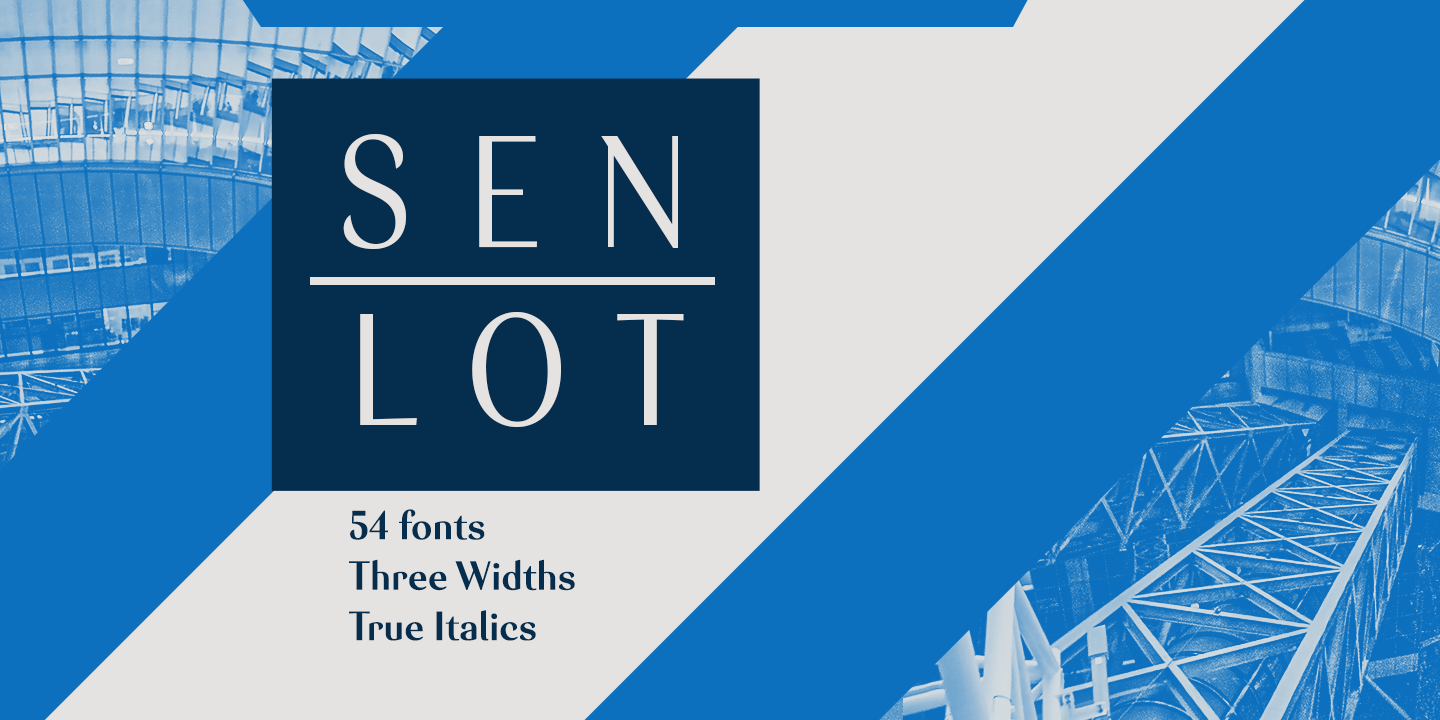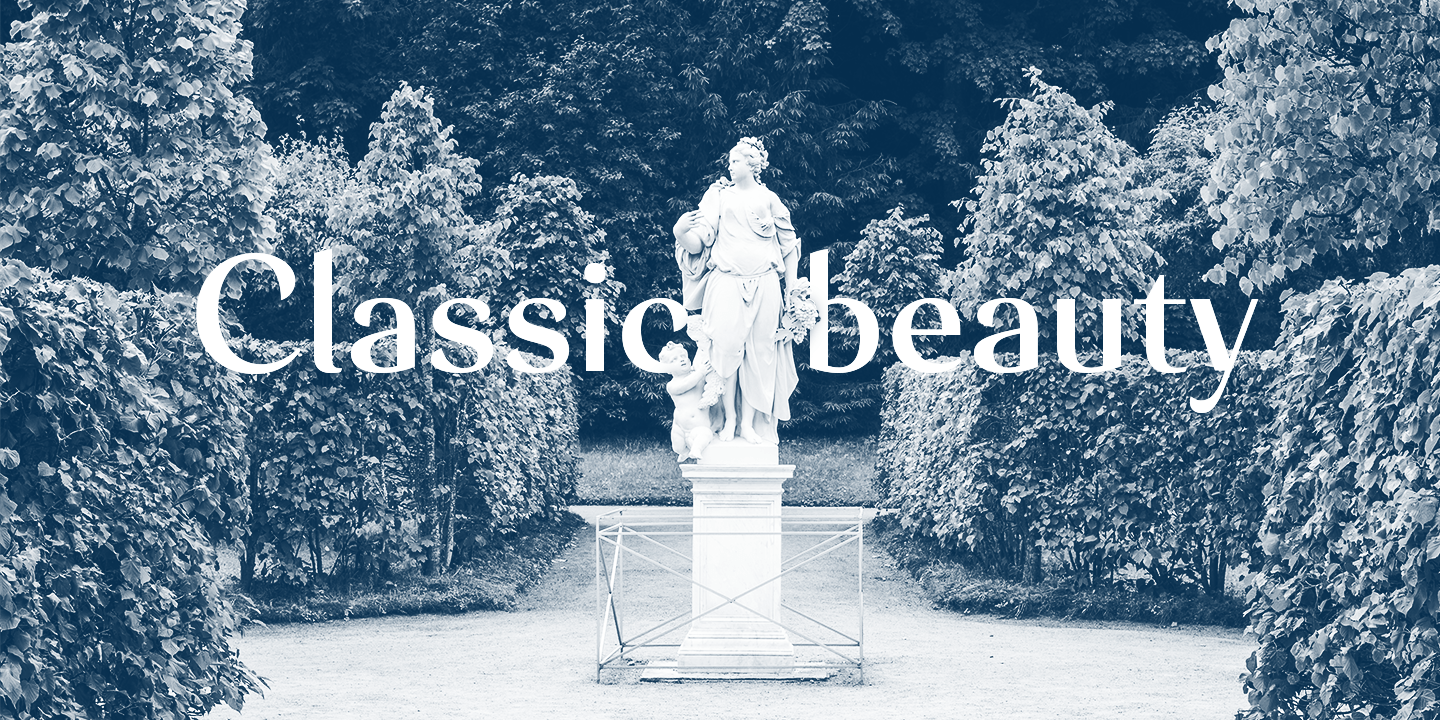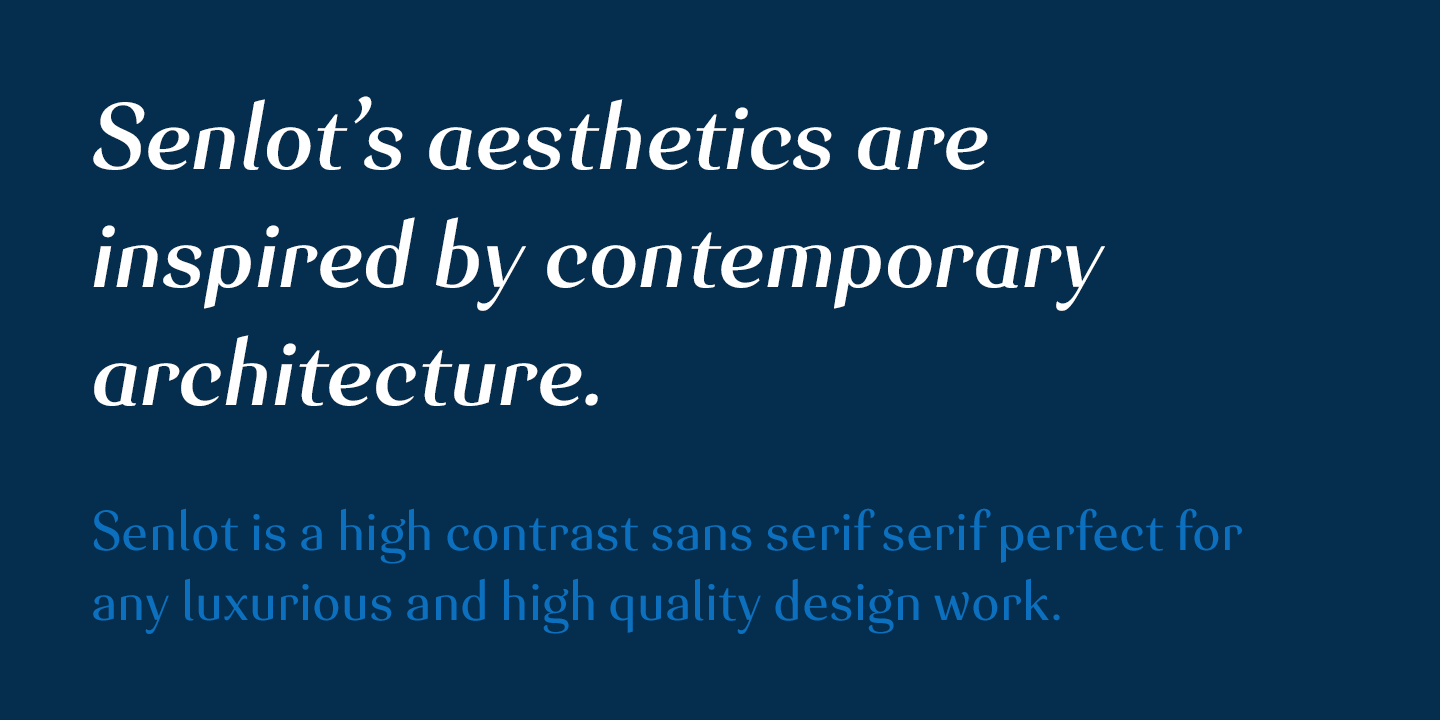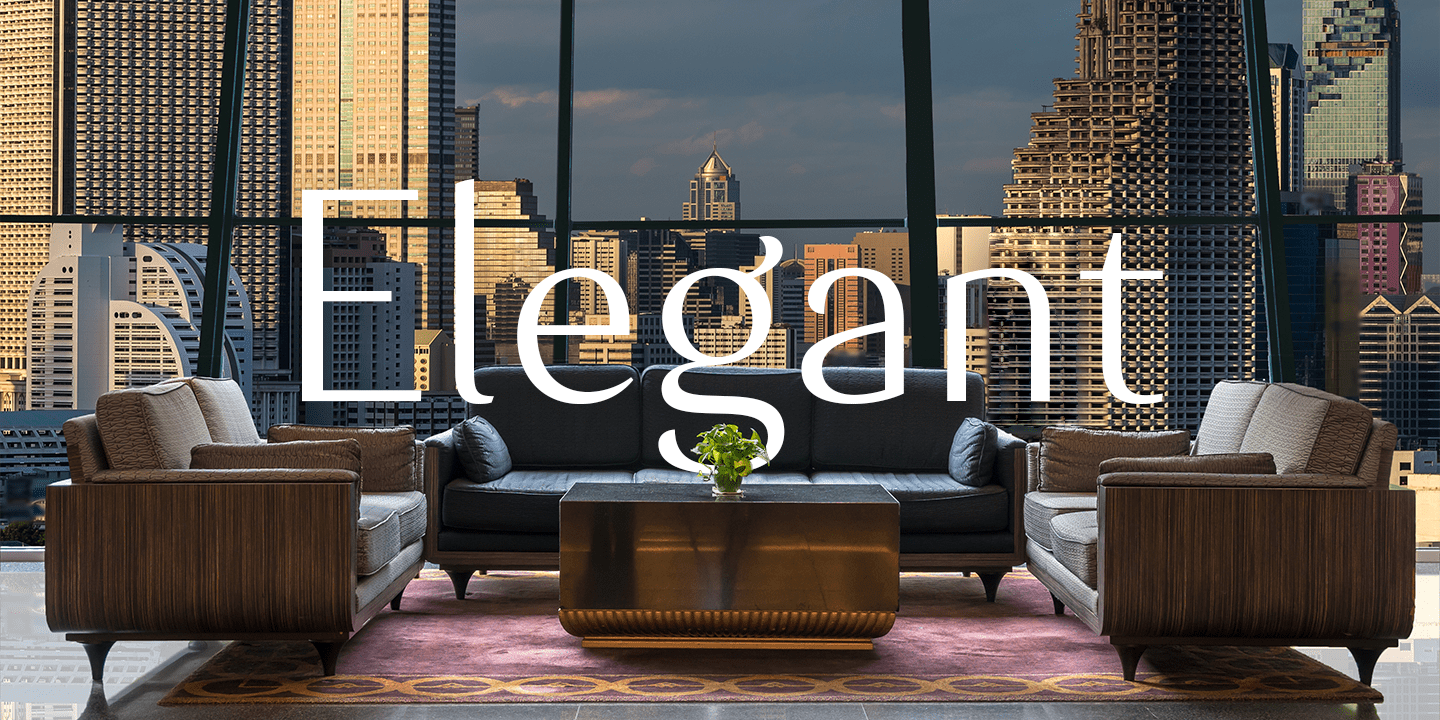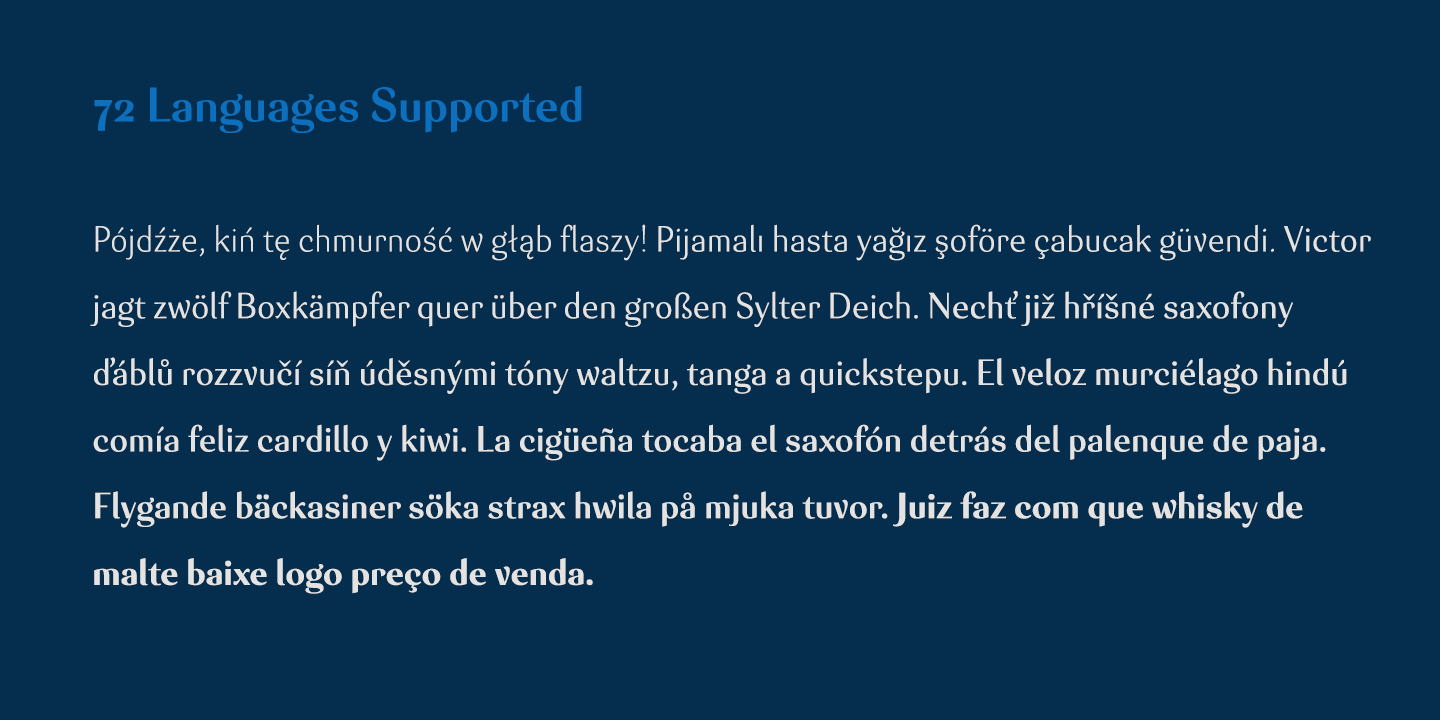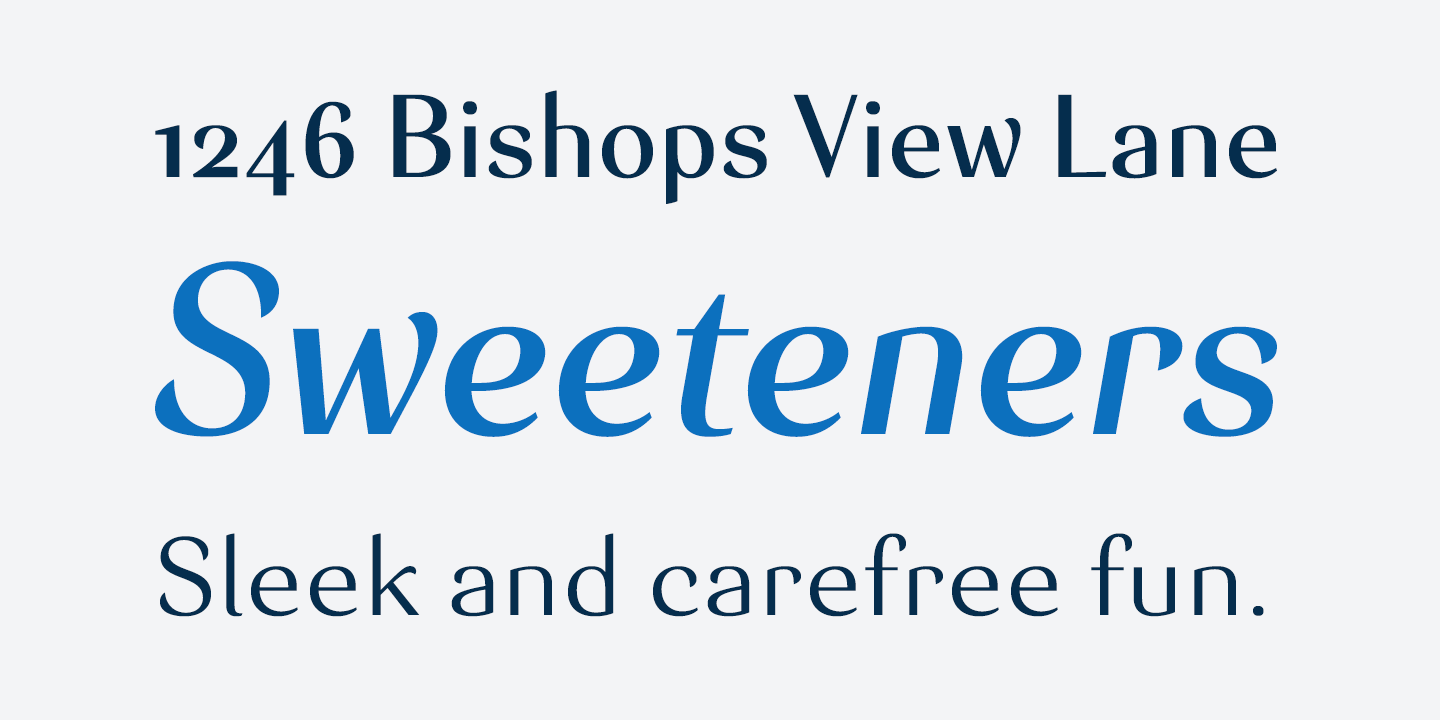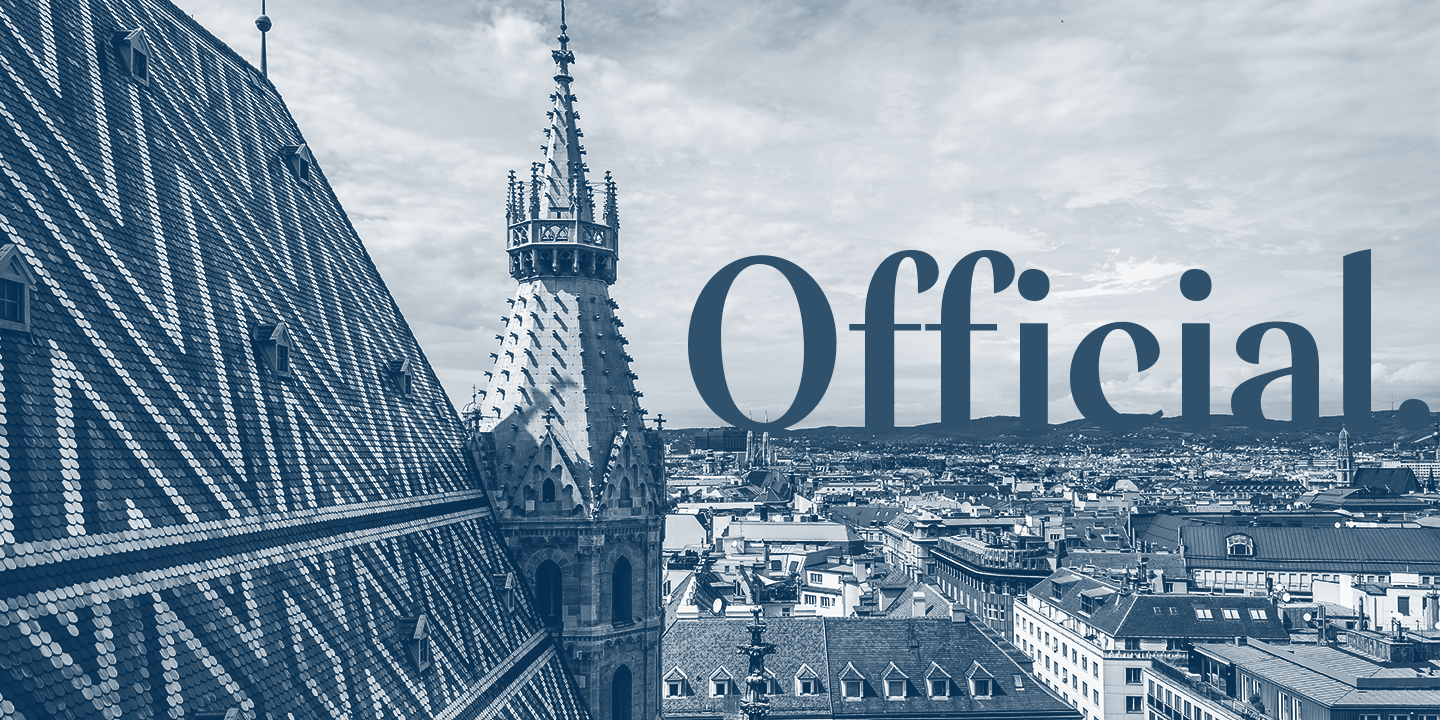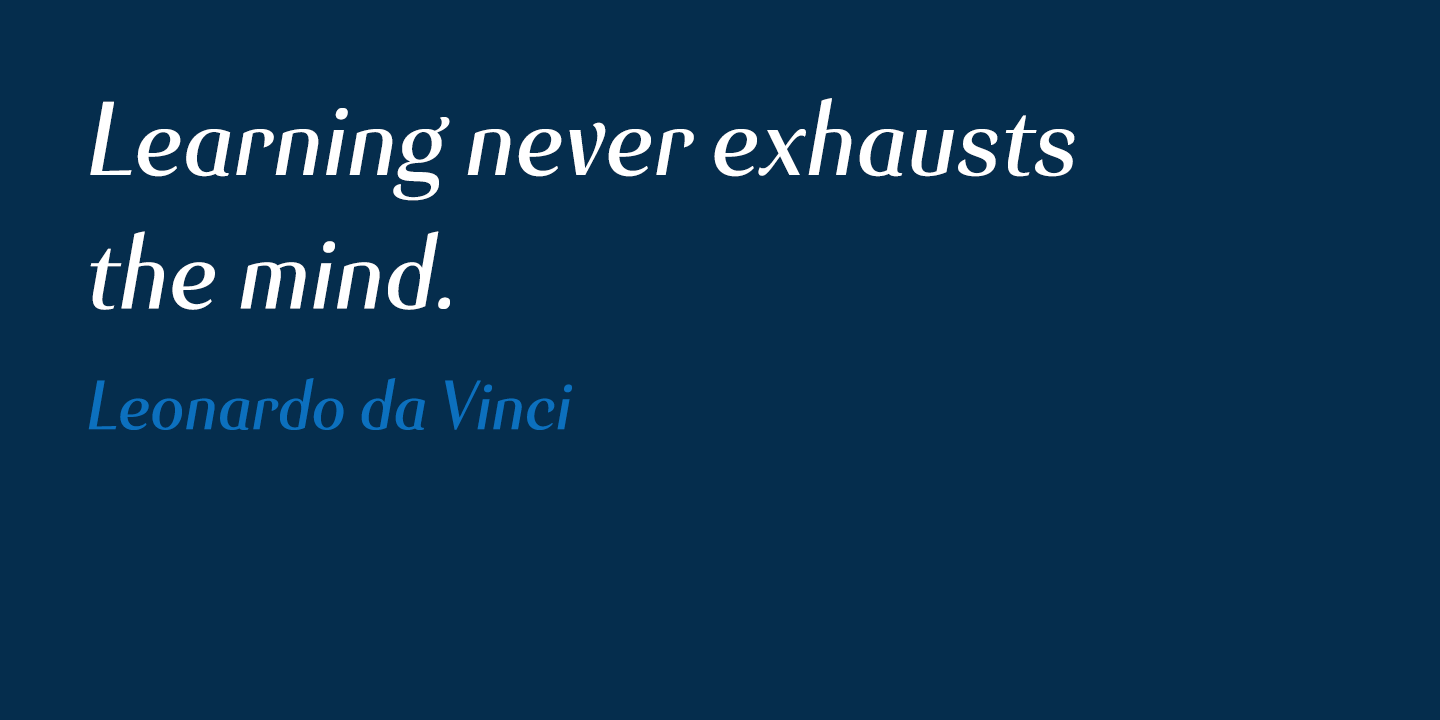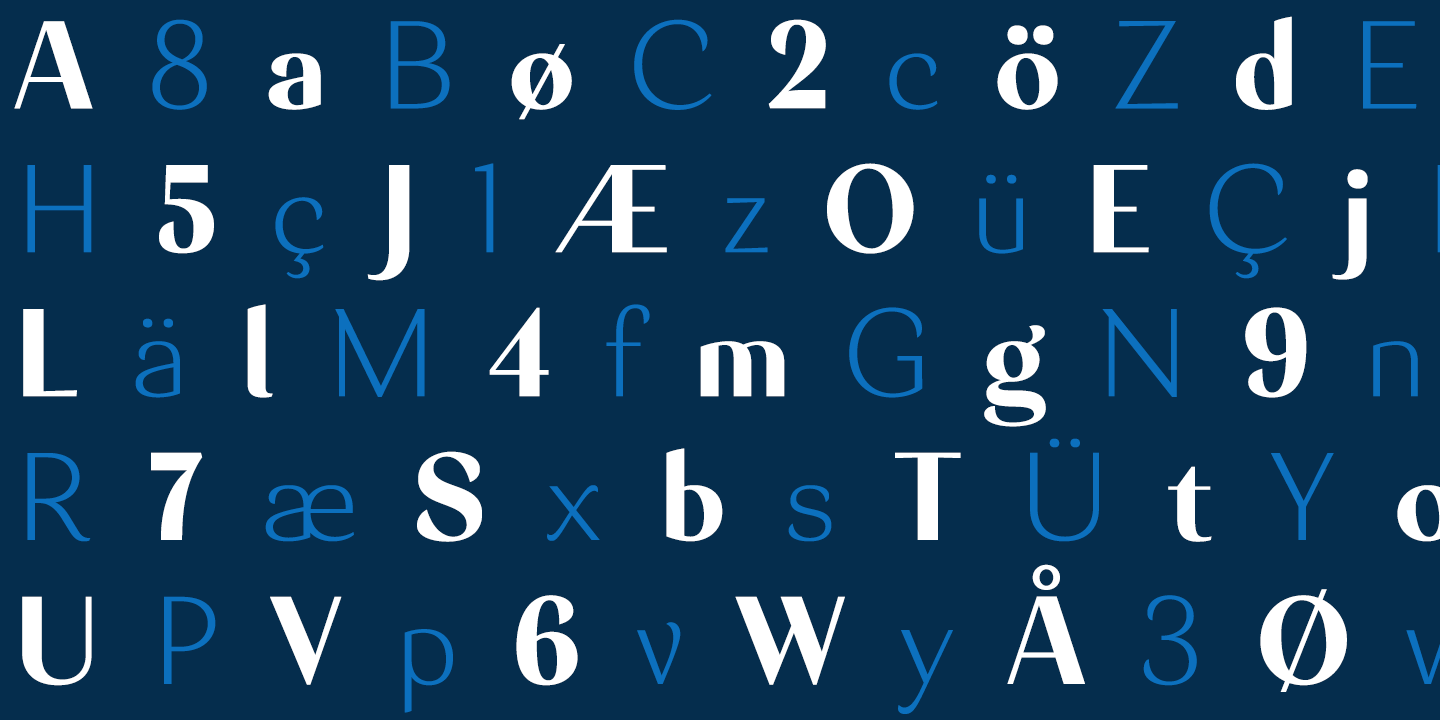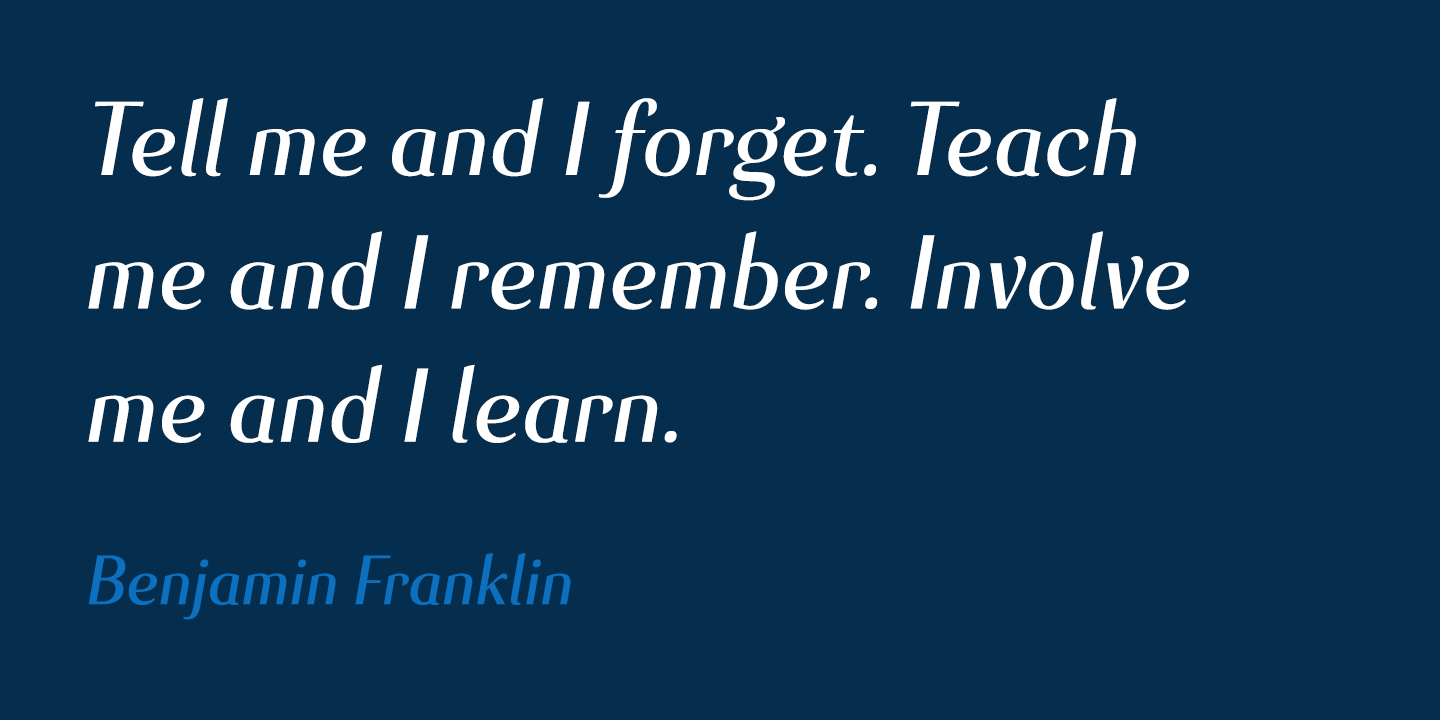
Senlot
Buy NowSteal the spotlight with Senlot. A high contrast sans serif, Senlot's figure is perfect for enrapturing your audience. The font shows off a unique calligraphic stress, which--with the contrast--makes the face quite usable in luxury and high quality design work.
The gorgeous appearance of Senlot is accompanied by a complete set of small capitals and a true italic. Dress your text in any of nine separate styles from Thin to Bold. Senlot also holds a full set of OpenType features, including titling capitals, superscripts and subscripts, and oldstyle figures and has an extended Latin cover with span for over 72 languages.